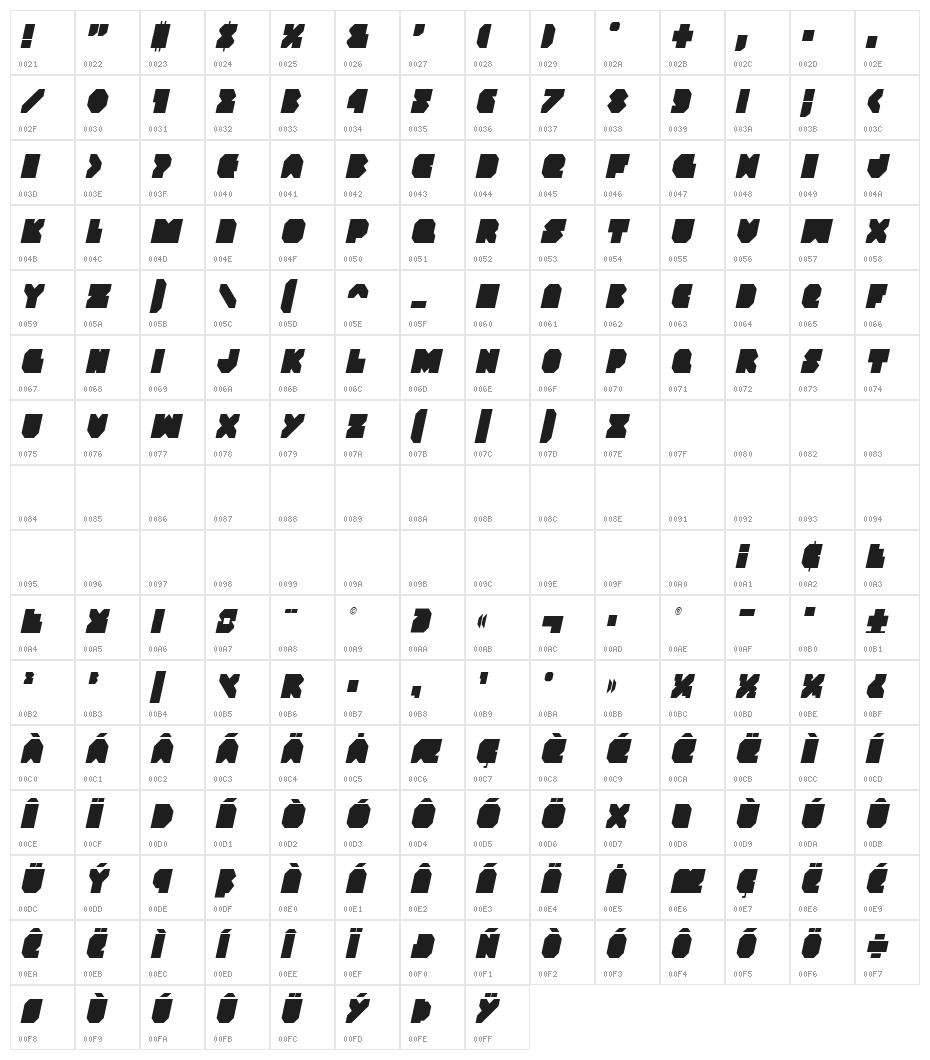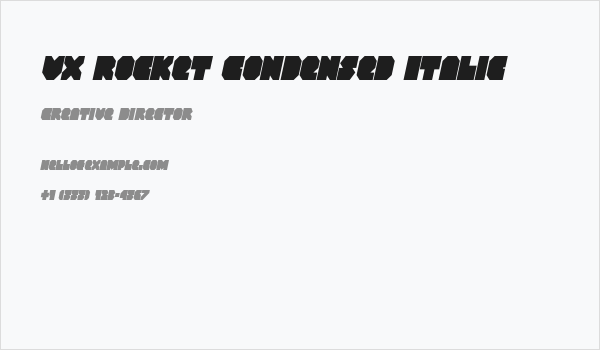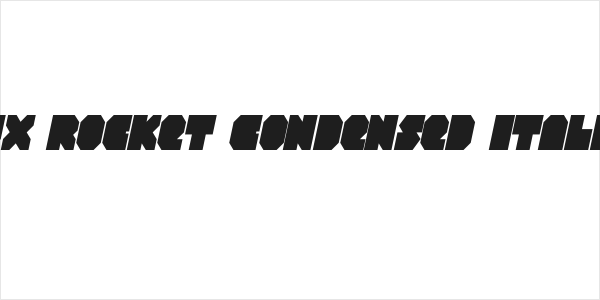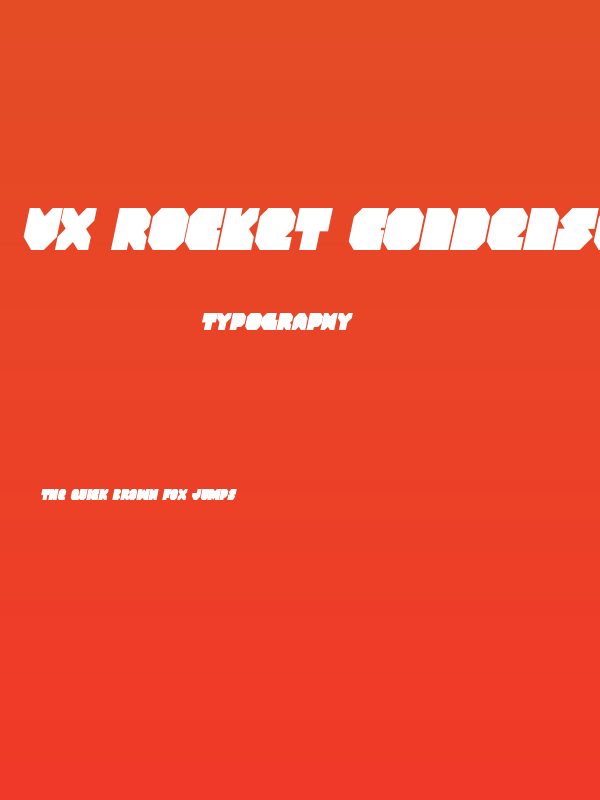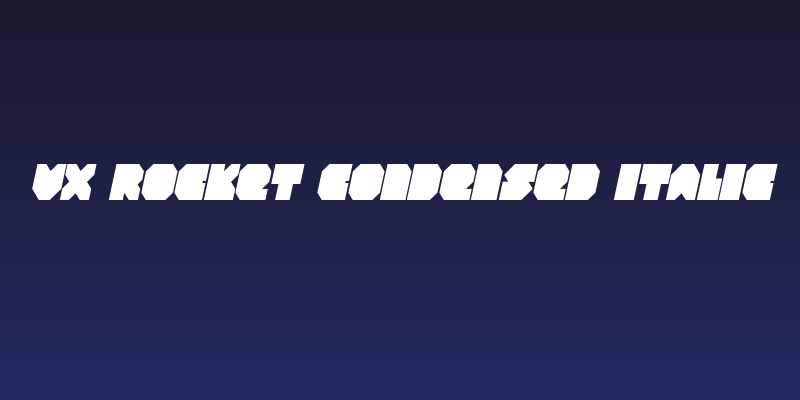
VX Rocket Condensed Italic Font
VX Rocket Condensed Italic Description
This font features a bold and geometric design with a distinct condensed and italicized style. The characters are constructed with sharp angles and straight lines, creating a futuristic and dynamic appearance. The uppercase and lowercase letters maintain a consistent structure, while the numbers and special characters complement the overall aesthetic. The font's unique style makes it stand out, offering a modern and edgy look that is ideal for attention-grabbing designs.